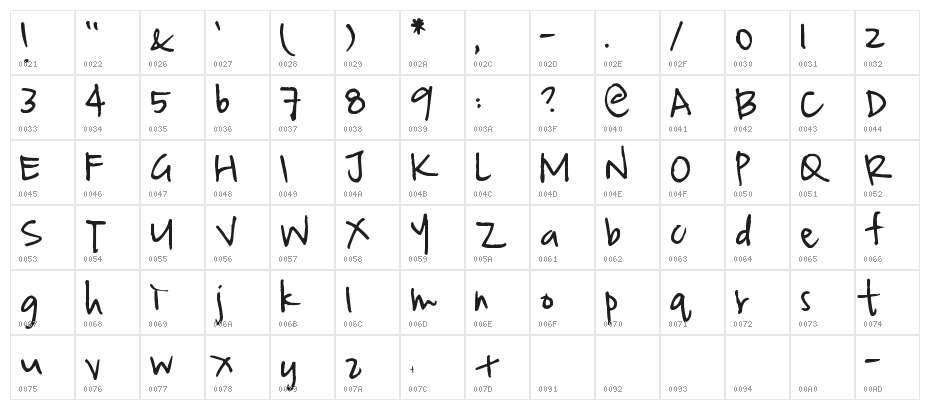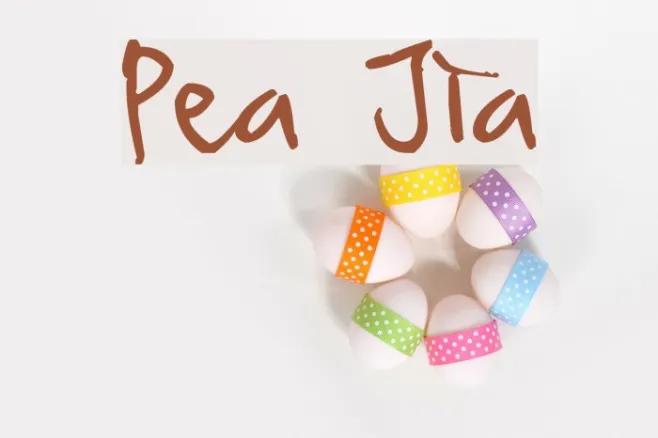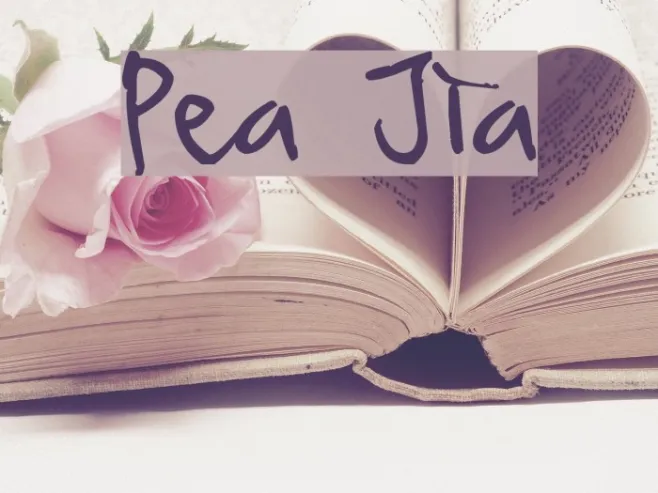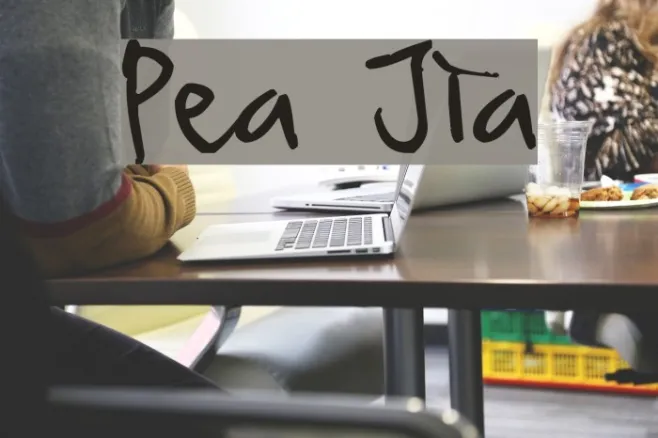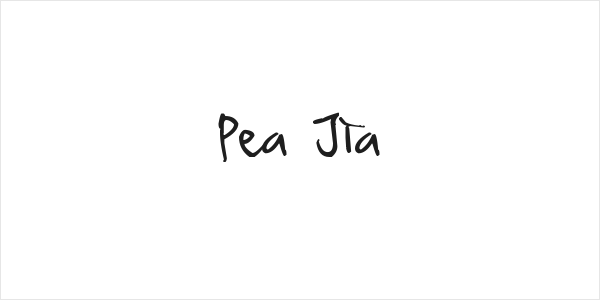
Pea Jia Font
Pea Jia Description
This font exudes a playful and informal vibe, characterized by its handwritten style. The letters are slightly irregular, with a casual flow that mimics natural handwriting. The strokes are uneven, adding to the font's charm and authenticity. It features a mix of thick and thin lines, giving it a dynamic and lively appearance. The uppercase and lowercase letters maintain a consistent style, while the numbers and special characters seamlessly integrate with the overall design. This font is perfect for projects that require a personal touch or a creative flair.
Overall StyleCasual, Playful
Use CaseHeadlines, Informal text, Creative projects
Proposed ProjectsIdeal for greeting cards, personal blogs, creative posters, and informal branding.